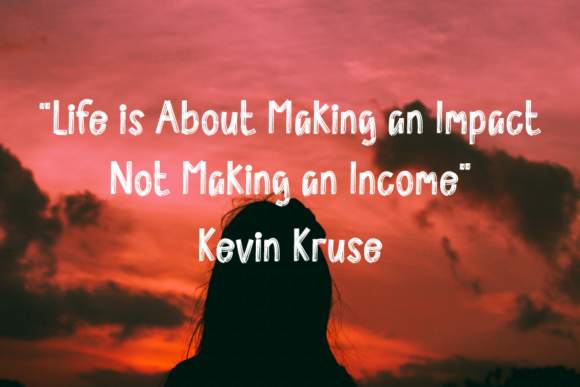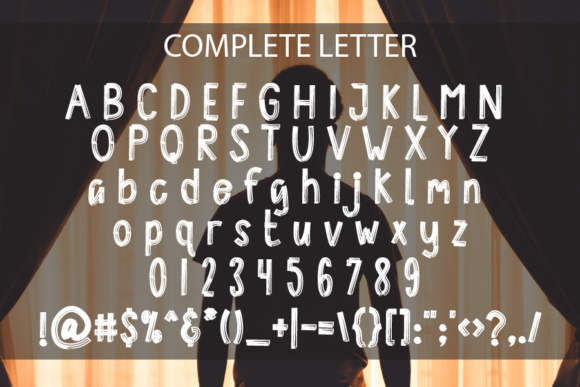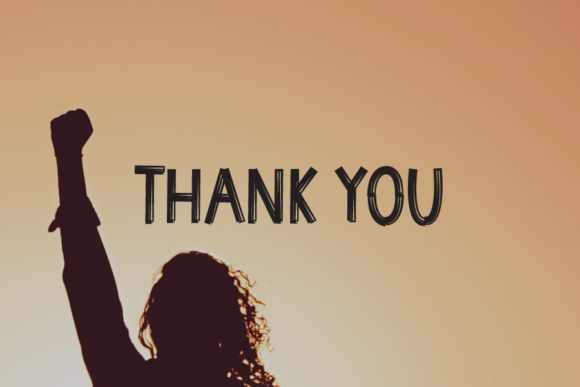
Introducing Dash Font: The Ultimate Display Font for Creative Standouts
Are you tired of using the same old fonts for your creative projects? Look no further than Dash Font, a playful and quirky display font that’s sure to turn heads. With its unique blend of fun, quirkiness, and authenticity, Dash Font is the perfect choice for designers and crafters looking to add a touch of personality to their work.
The Story Behind Dash Font
Dash Font is more than just a font – it’s an experience. Designed to evoke a sense of playfulness and creativity, Dash Font is perfect for projects that require a bit of whimsy and flair. Whether you’re working on a branding project, a craft tutorial, or a social media graphic, Dash Font is sure to bring a smile to your audience’s face.
What Makes Dash Font So Special?
So, what sets Dash Font apart from other display fonts on the market? Here are just a few of its standout features:
- Unique Letterforms: Dash Font features unique and quirky letterforms that are sure to grab attention. From the swooping curves of the “S” to the playful tail of the “Q”, every letter is designed to add a touch of personality to your text.
- Fun and Playful: Dash Font is all about having fun. Its playful and carefree vibe makes it perfect for projects that require a bit of humor and whimsy.
- Authentic and Genuine: Unlike other display fonts that can feel forced or contrived, Dash Font is genuinely quirky and charming. It’s the perfect choice for designers and crafters who want to add a touch of personality to their work.
How to Use Dash Font in Your Projects
Dash Font is incredibly versatile and can be used in a variety of creative projects. Here are just a few ideas to get you started:
- Branding and Logos: Use Dash Font to create a unique and memorable logo for your business or brand.
- Craft Tutorials: Add a touch of personality to your craft tutorials with Dash Font. It’s perfect for titles, headings, and other decorative elements.
- Social Media Graphics: Use Dash Font to create eye-catching social media graphics that are sure to grab attention.
- Invitations and Party Decor: Dash Font is perfect for creating custom invitations, party decor, and other celebratory materials.
Tips and Tricks for Getting the Most Out of Dash Font
Here are a few tips and tricks for getting the most out of Dash Font:
- Experiment with Colors: Dash Font looks great in a variety of colors, so don’t be afraid to experiment and find the perfect hue for your project.
- Mix and Match: Try pairing Dash Font with other fonts to create a unique and interesting contrast.
- Play with Size: Dash Font looks great in a variety of sizes, so don’t be afraid to experiment and find the perfect size for your project.
In conclusion, Dash Font is a unique and playful display font that’s sure to add a touch of personality to any creative project. With its quirky letterforms, fun and playful vibe, and authentic charm, Dash Font is the perfect choice for designers and crafters looking to create something truly standout. So why wait? Download Dash Font today and start creating your own unique and eye-catching projects!